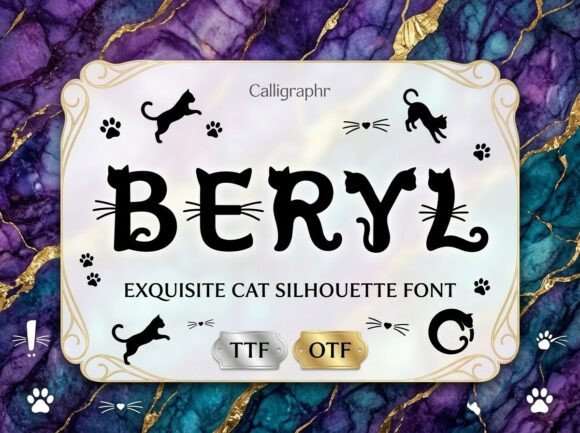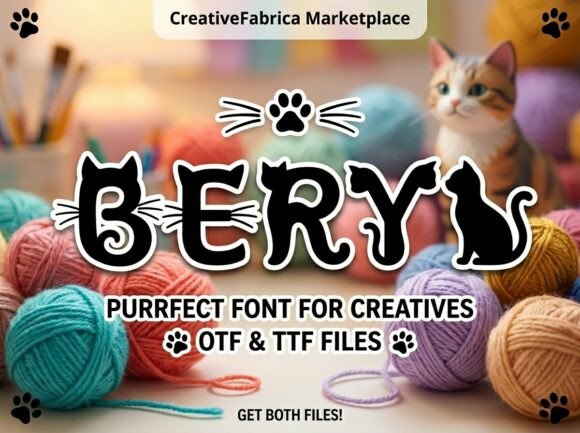
Beryl Font: A Stunning Decorative Display Font for Creative Minds
Are you tired of using the same old fonts for your creative projects? Look no further than the Beryl Font, a unique and artistic display font designed to make a statement. With its strong visual personality and decorative elements, this font is perfect for creators who want to add a touch of elegance and sophistication to their work.
What Makes Beryl Font So Special?
Beryl Font is a decorative display font that is sure to turn heads. Its unique artistic elements and strong visual personality make it perfect for bold headlines, artistic logos, and creative packaging. Whether you’re a designer, crafty DIY enthusiast, or simply someone who loves to create, this font is versatile enough to meet your needs while maintaining a professional and polished finish.
Before purchasing Beryl Font, please note that it is an ALL-CAPS (Uppercase Only) display typeface. This means that it does not include lowercase letters. It is specifically designed for high-impact headlines, logos, and decorative initials where every letter is a work of art.
Use Cases for Beryl Font
Beryl Font is perfect for a variety of creative projects, including:
- Bold Headlines – Use Beryl Font to create eye-catching headlines for your blog posts, articles, or social media posts.
- Artistic Logos – Create a unique and memorable logo for your business or brand with Beryl Font.
- Creative Packaging – Add a touch of elegance and sophistication to your product packaging with Beryl Font.
- Decorative Initials – Use Beryl Font to create beautiful decorative initials for your artwork, crafts, or DIY projects.
Why Choose Beryl Font?
With so many fonts available, why choose Beryl Font? Here are just a few reasons:
- Unique and Artistic – Beryl Font is a one-of-a-kind decorative display font that will add a touch of elegance and sophistication to your creative projects.
- Versatile – Beryl Font is perfect for a variety of creative projects, from bold headlines to artistic logos and creative packaging.
- Professional and Polished – Despite its decorative nature, Beryl Font maintains a professional and polished finish that’s perfect for businesses and brands.